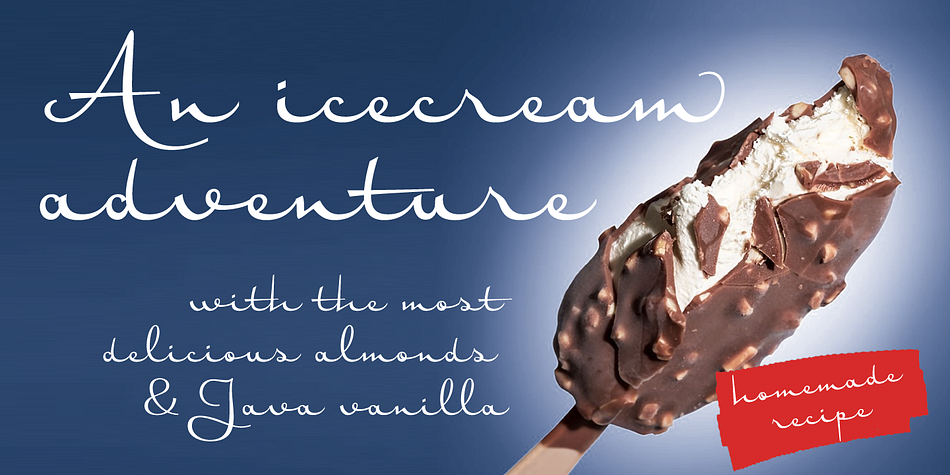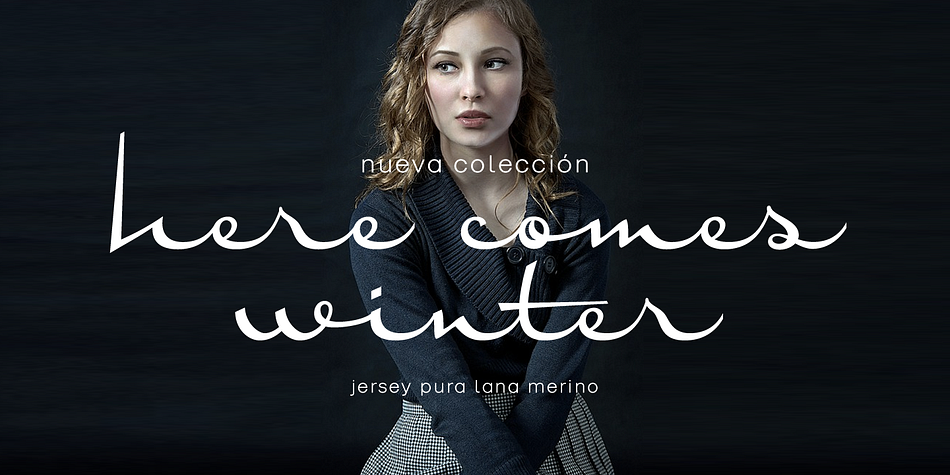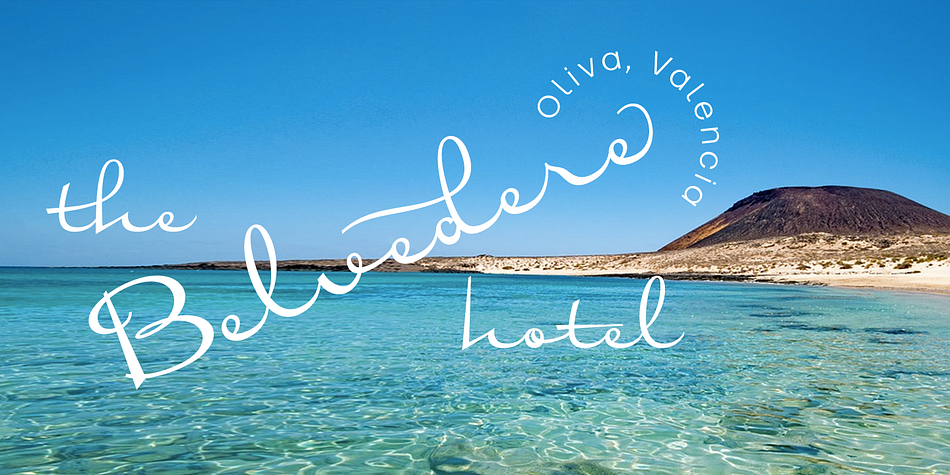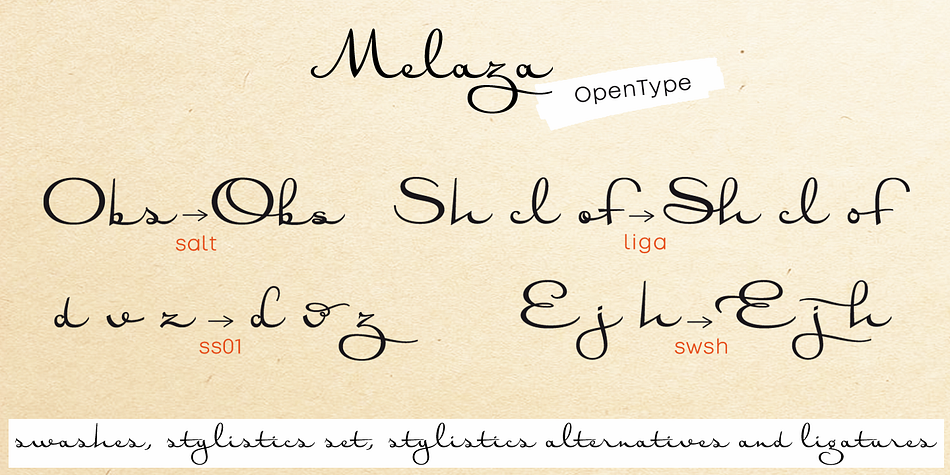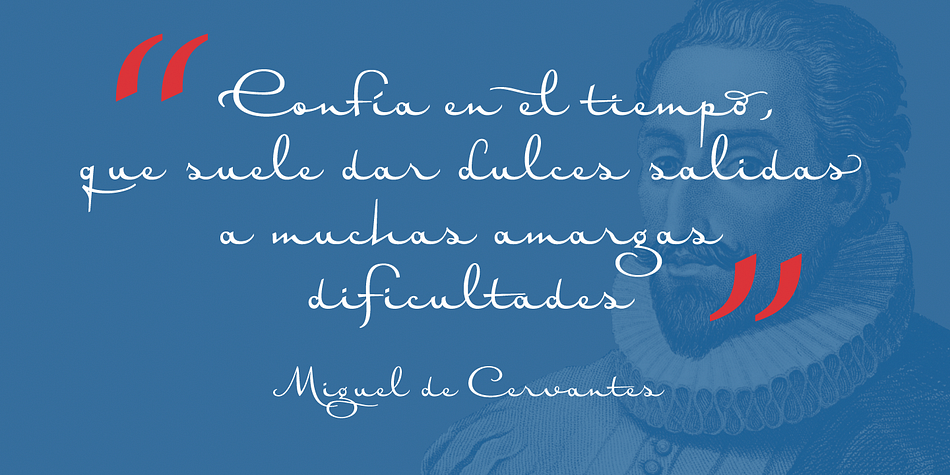
Melaza
Designed by Carine de Wandeleer, Melaza is a script font family published by Eurotypo.
Melaza is a new calligraphy font, designed from a handwritten script, round, very expanded and with very low x height and exaggerated ascender and descender height. This gives it a strong character and expressiveness.
Take advantage of Melaza’ extended OpenType features, including swashes, stylistic sets, stylistic alternates, and ligatures that let you mix and match pairs of letters. This will help your creativity and make it easy for your typographic work to be expressive, realistic and elegant. In addition, it contains a Central European language support to suit your design.
Melaza looks lovely on wedding invitations, greeting cards, logos, signs, labels, logos, business cards, fashion, magazines, packaging, and menus, and for anything you can imagine!